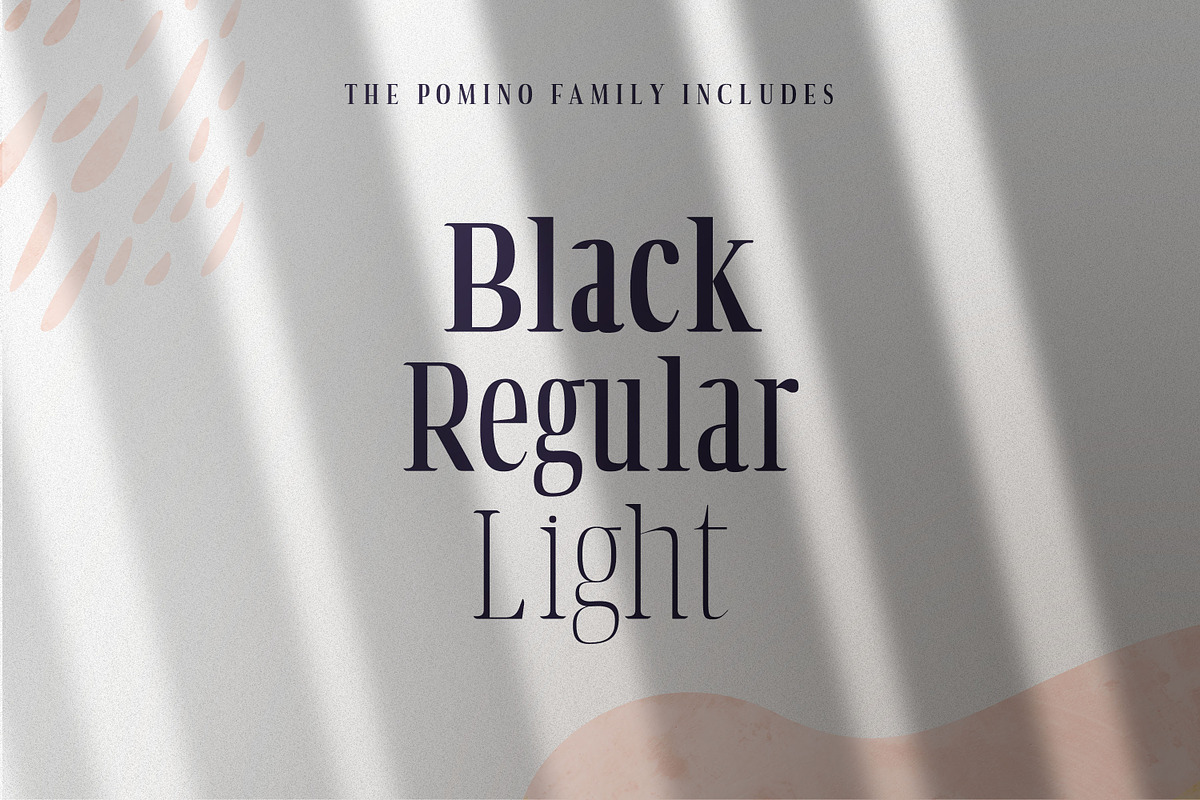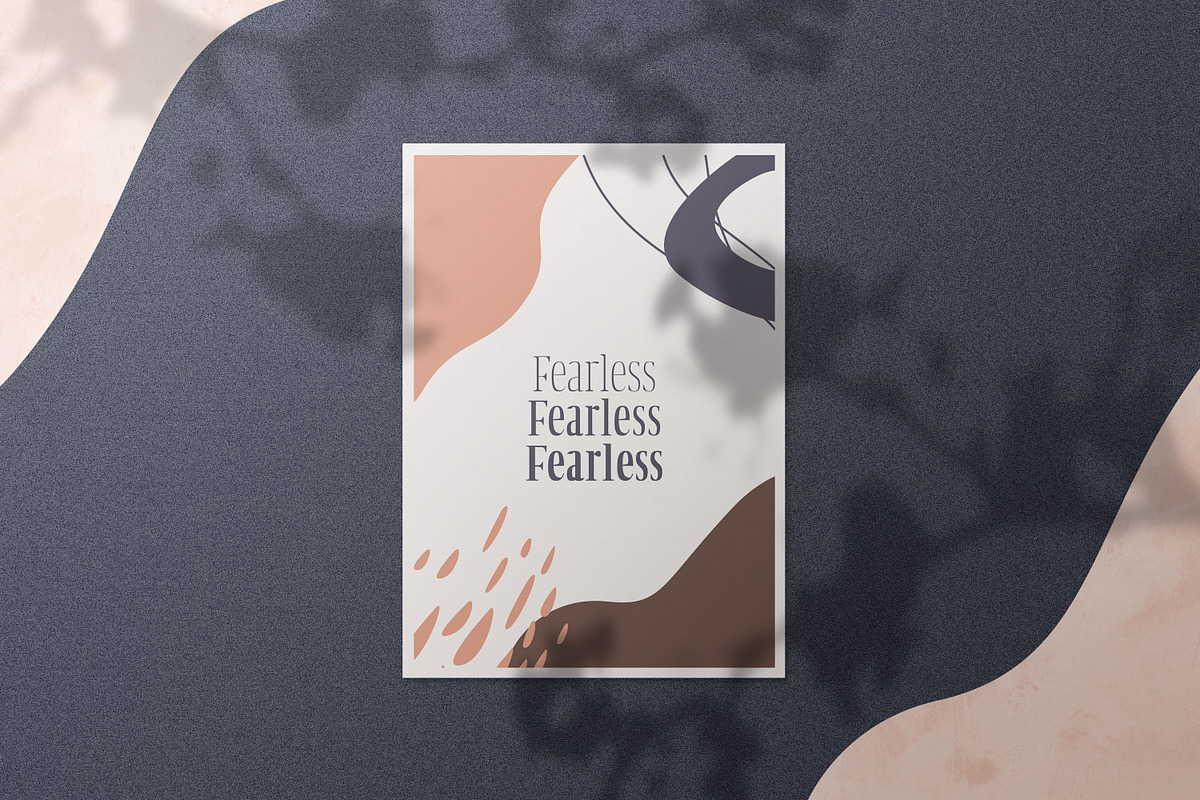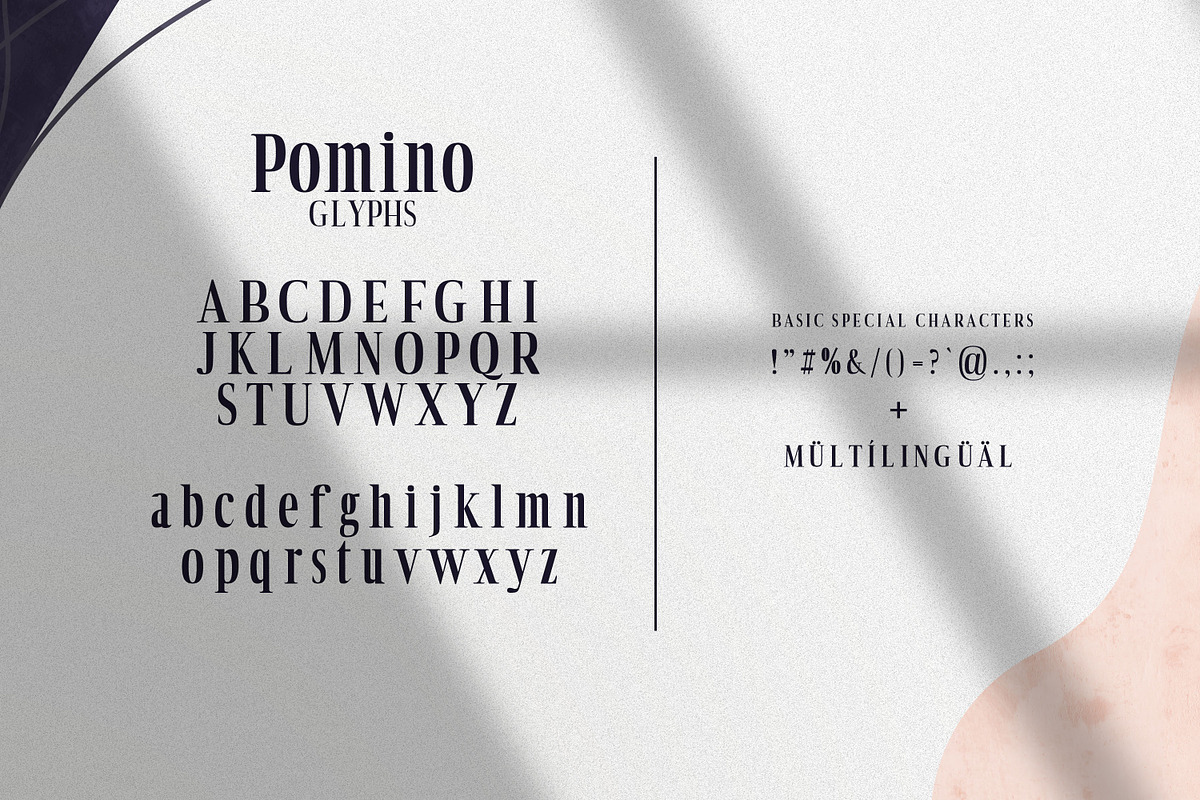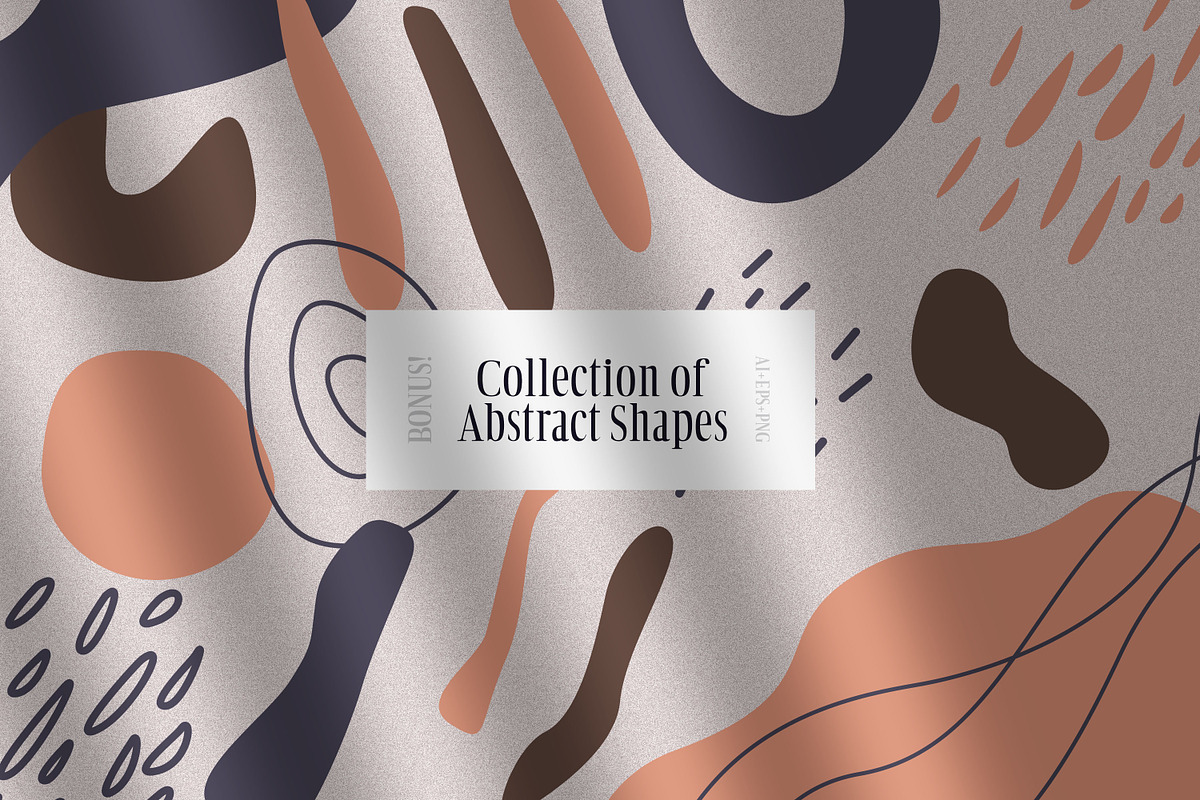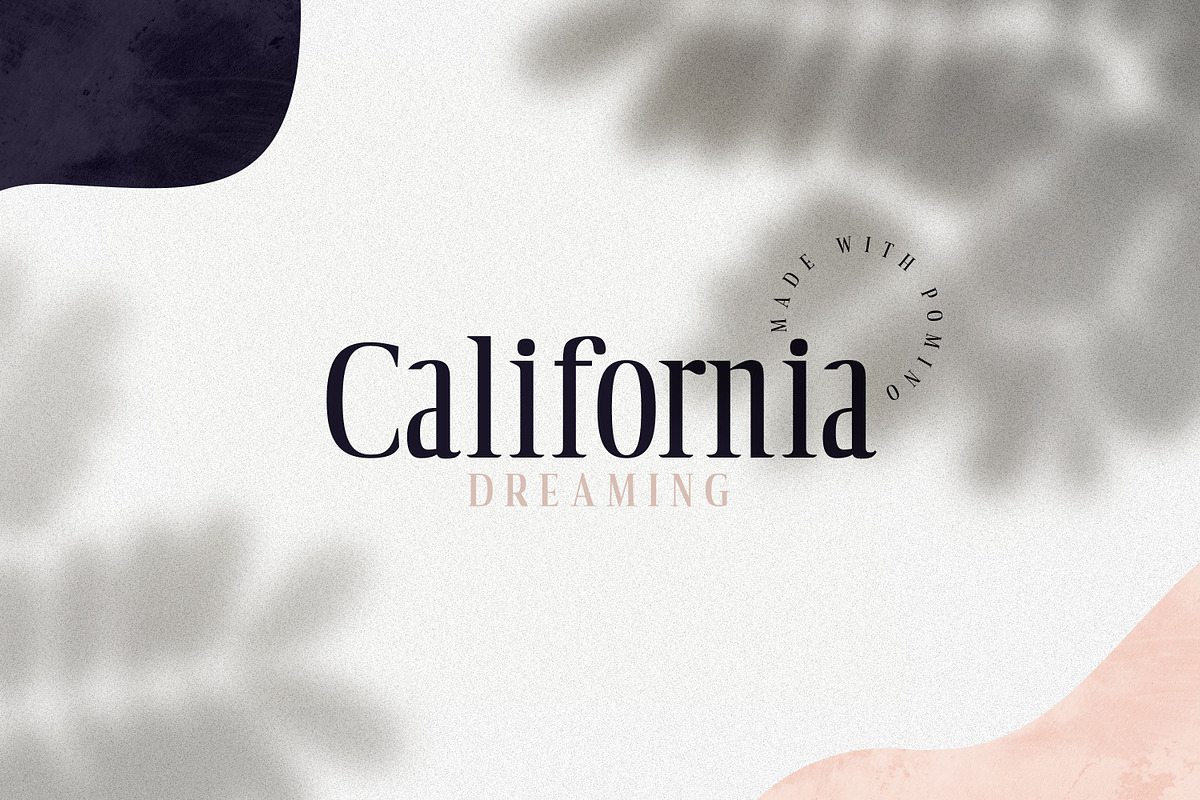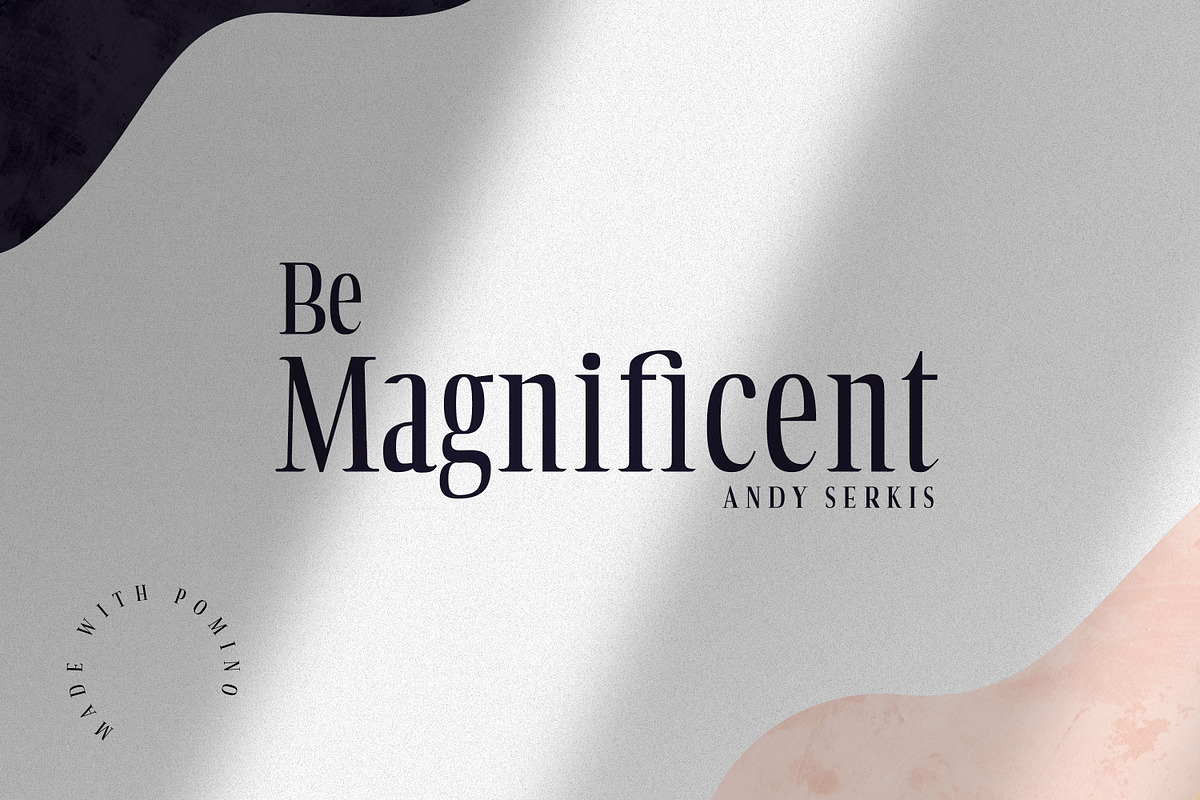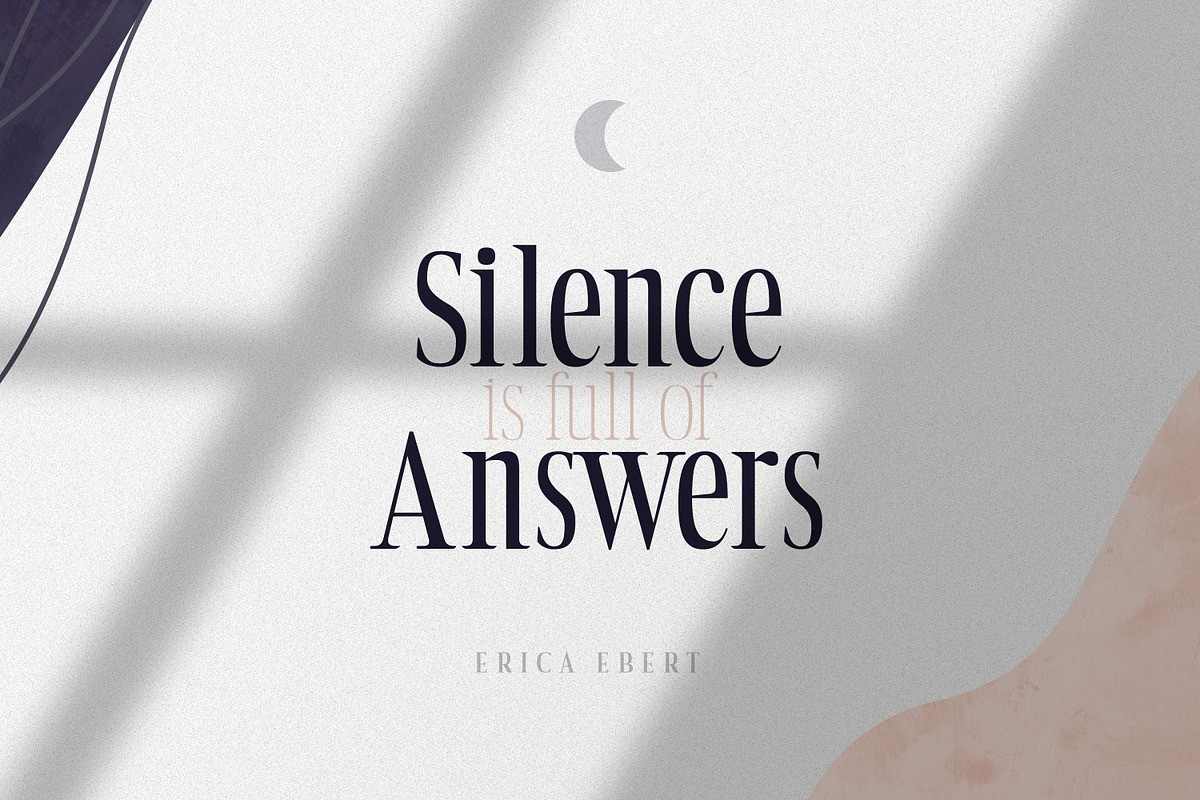
Pomino - Modern Serif Font Family
Introducing Pomino - a modern serif typeface with light, regular and bold fonts.
Pomino is a perfect font family for modern elegant designs and works in large display titles, logos and small paragraphs. It looks modern and trendy and suits well for all kinds of branding projects and marketing purpouses. You can combine them in endless ways and create unique logo lockups. Also, why not use it to create posters, stationery, packaging, all kinds of inivations and so much more! Here's what's included: